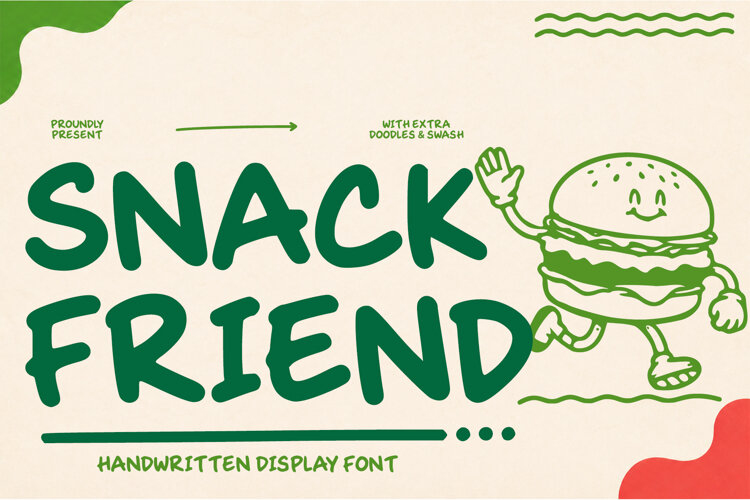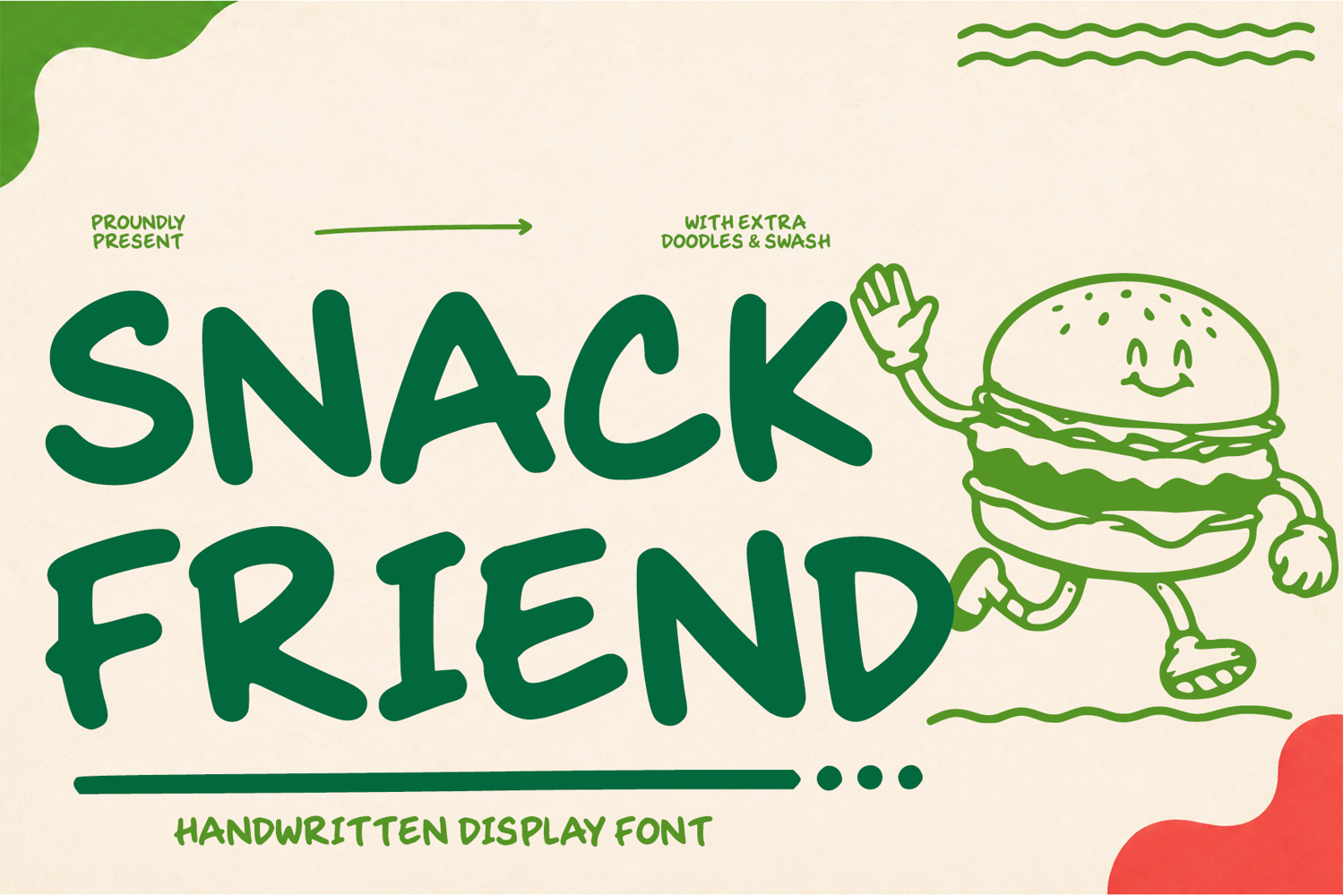
Snack Friend
Introducing Snack Friend — a playful, bold, and quirky handwritten display font packed with cheerful character and handmade charm.
Featuring chunky letterforms, organic shapes, and slightly irregular strokes, Snack Friend creates a fun, friendly, and eye-catching look that instantly brings energy to any design.
Snack Friend also includes extra doodles and decorative swashes, adding even more creative possibilities for playful and expressive designs.
Bold, friendly, and full of character — Snack Friend adds the perfect touch of fun to your next project!